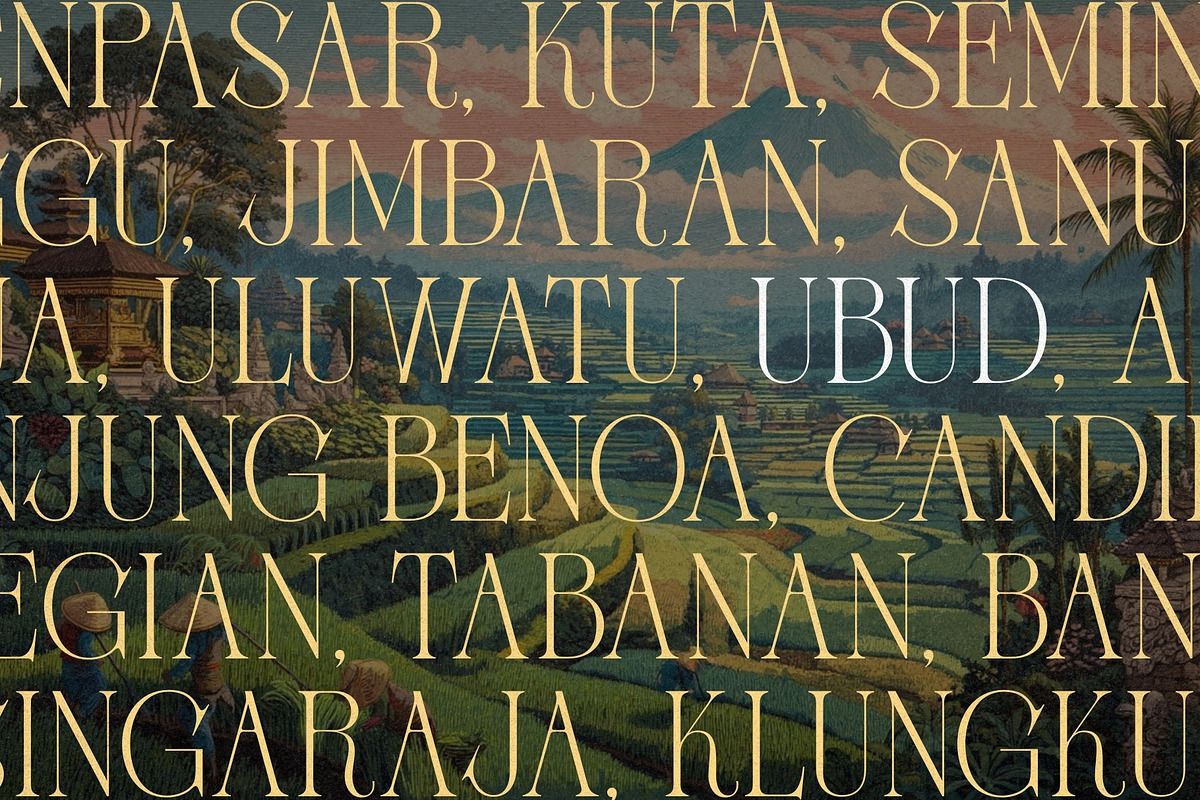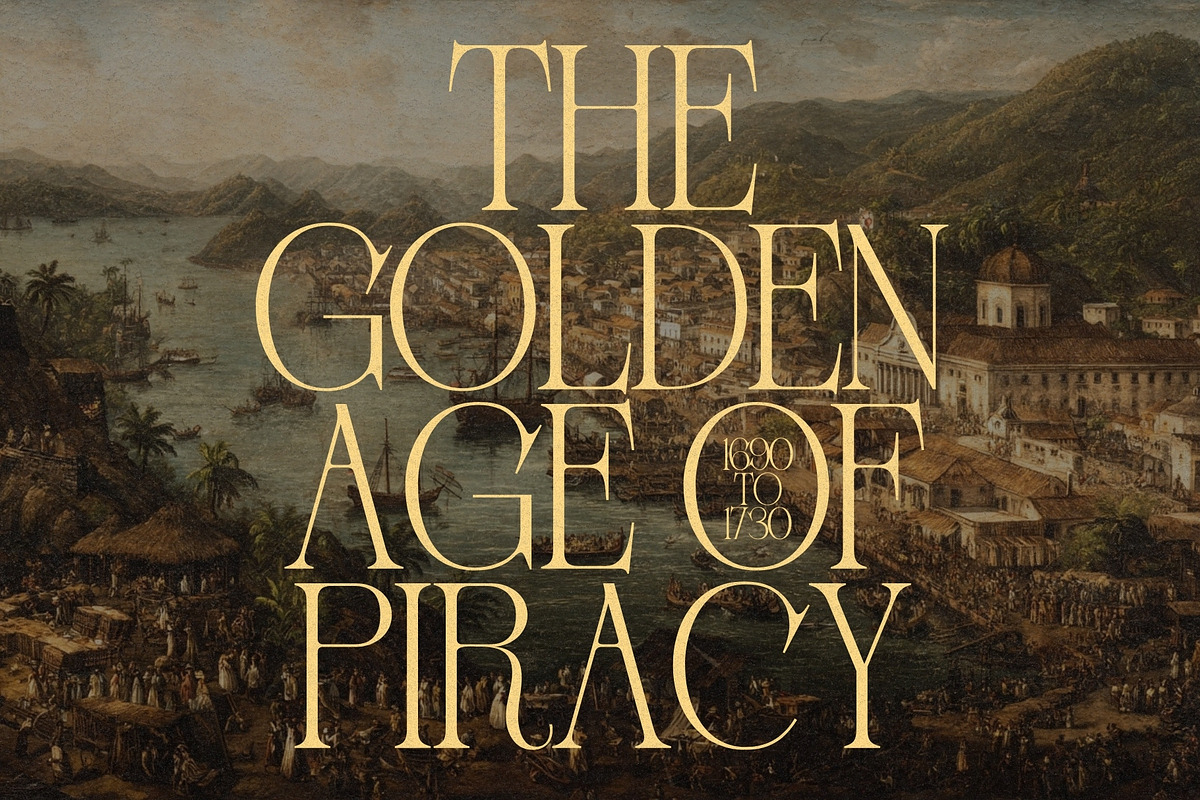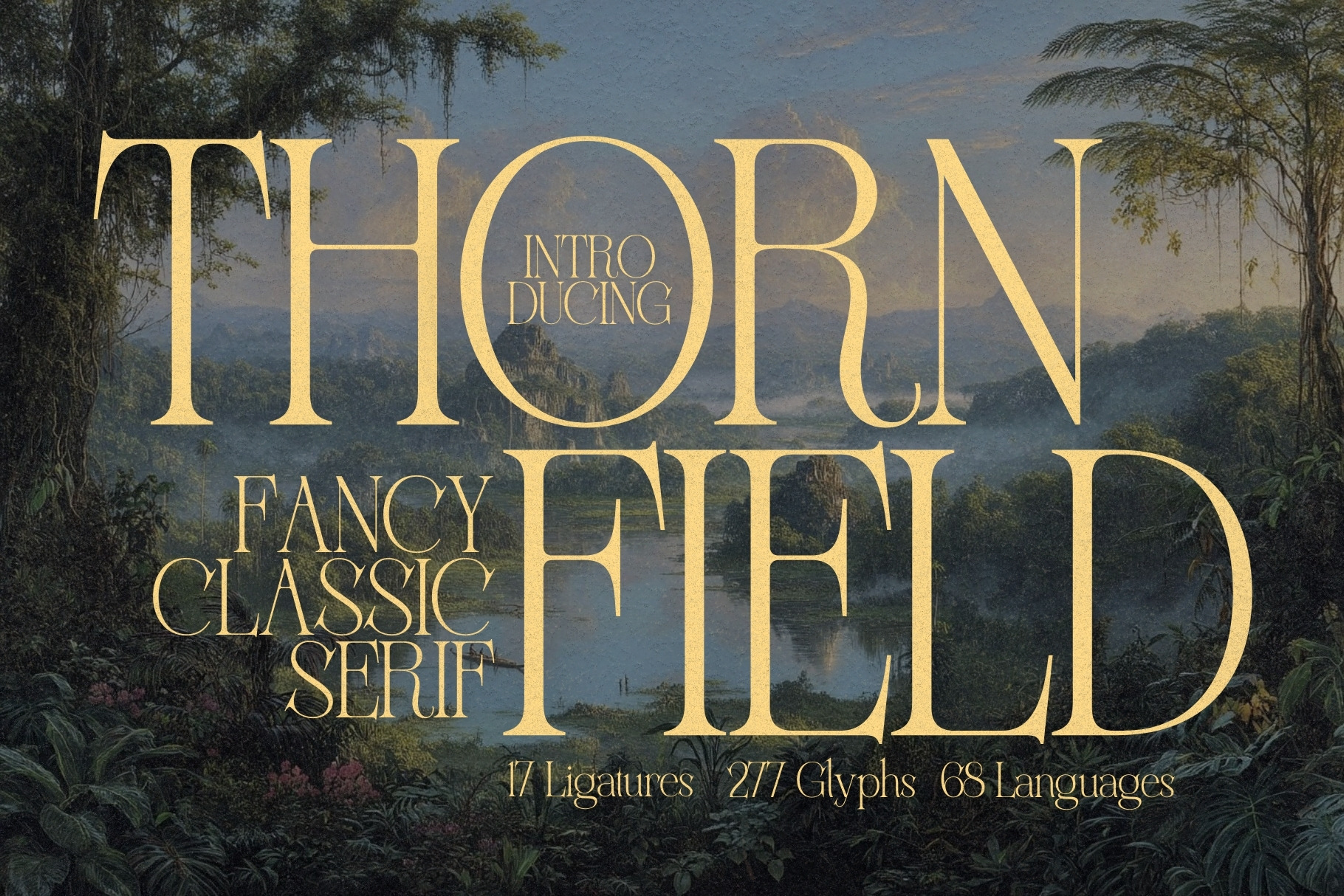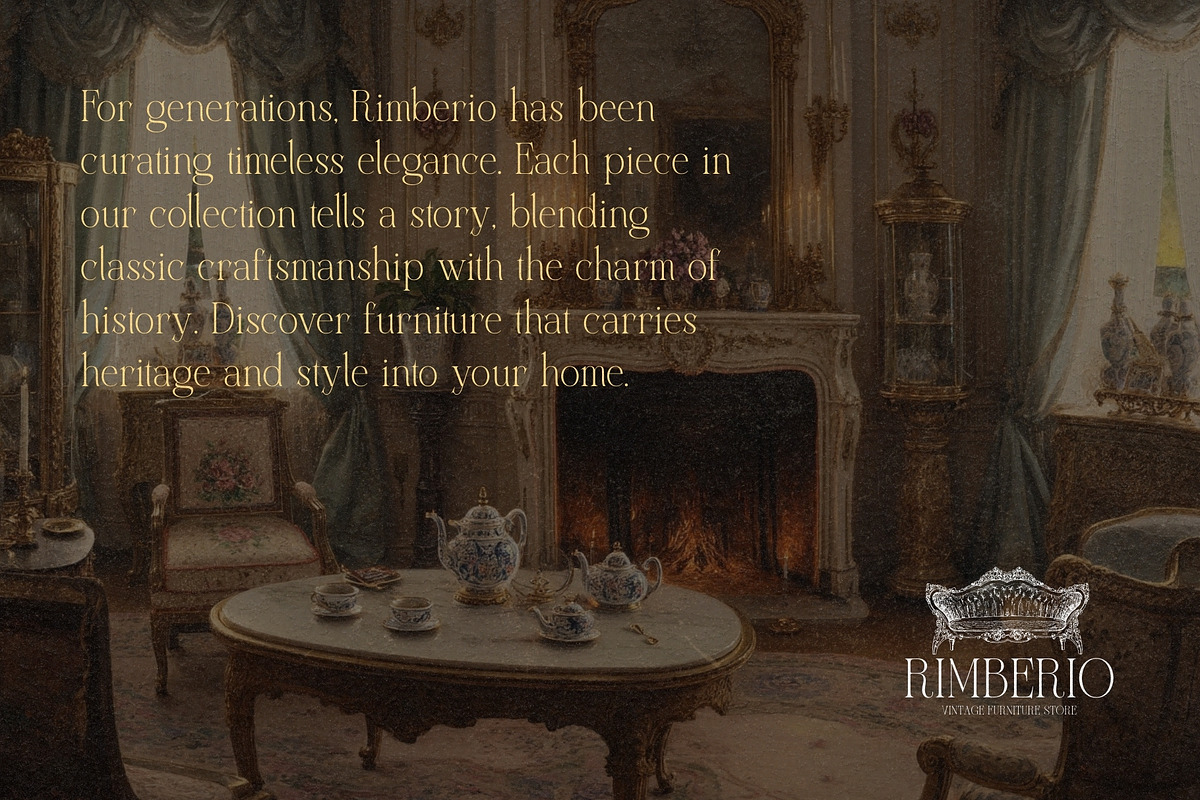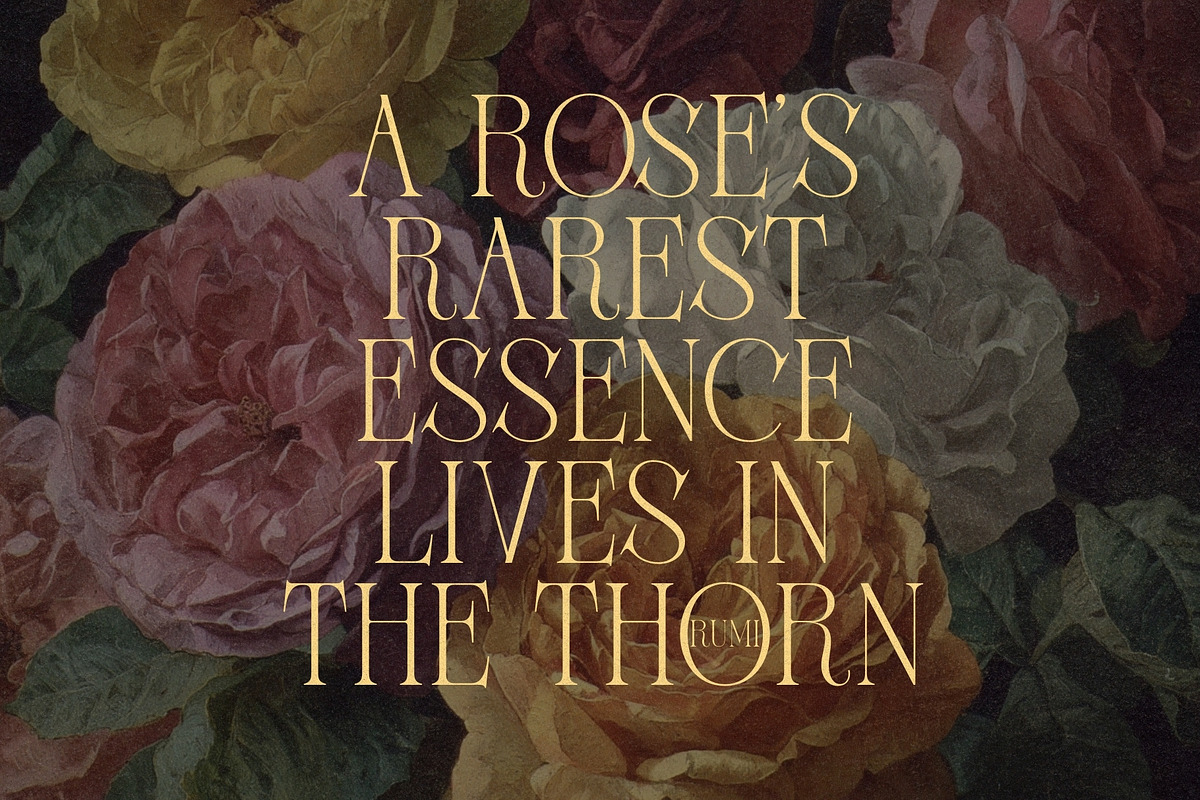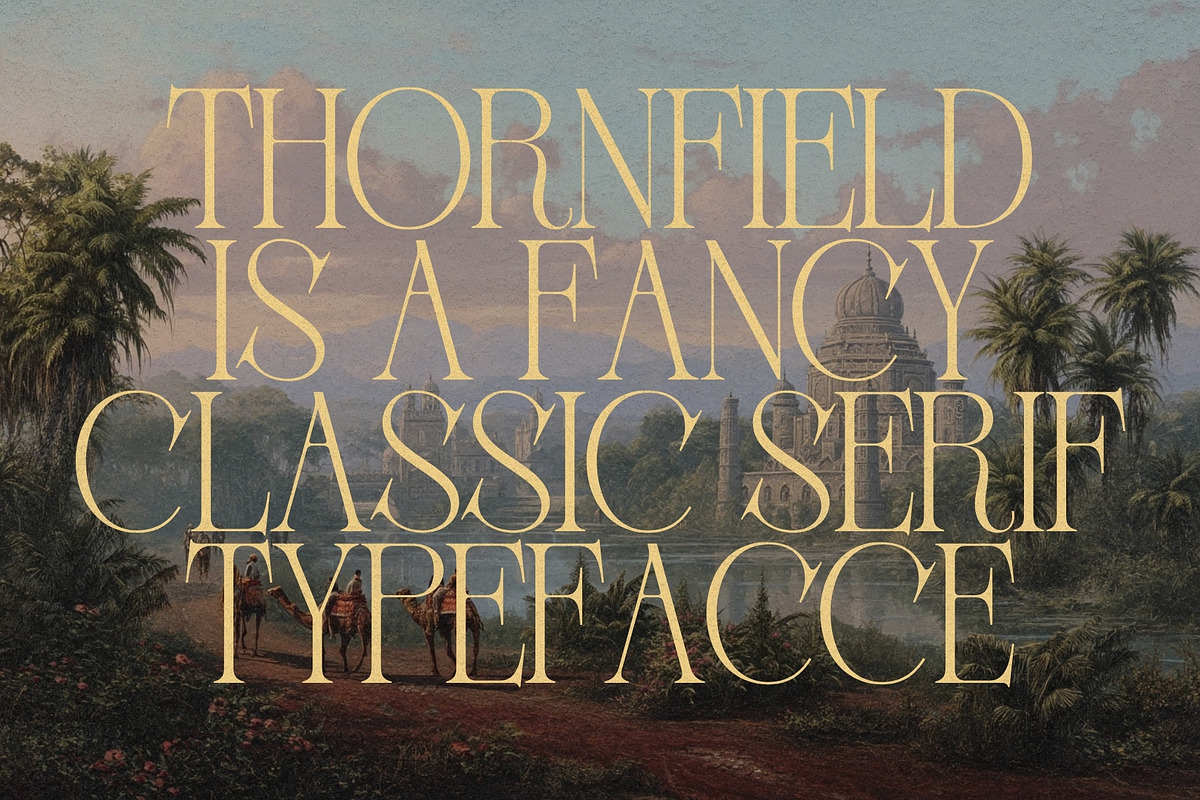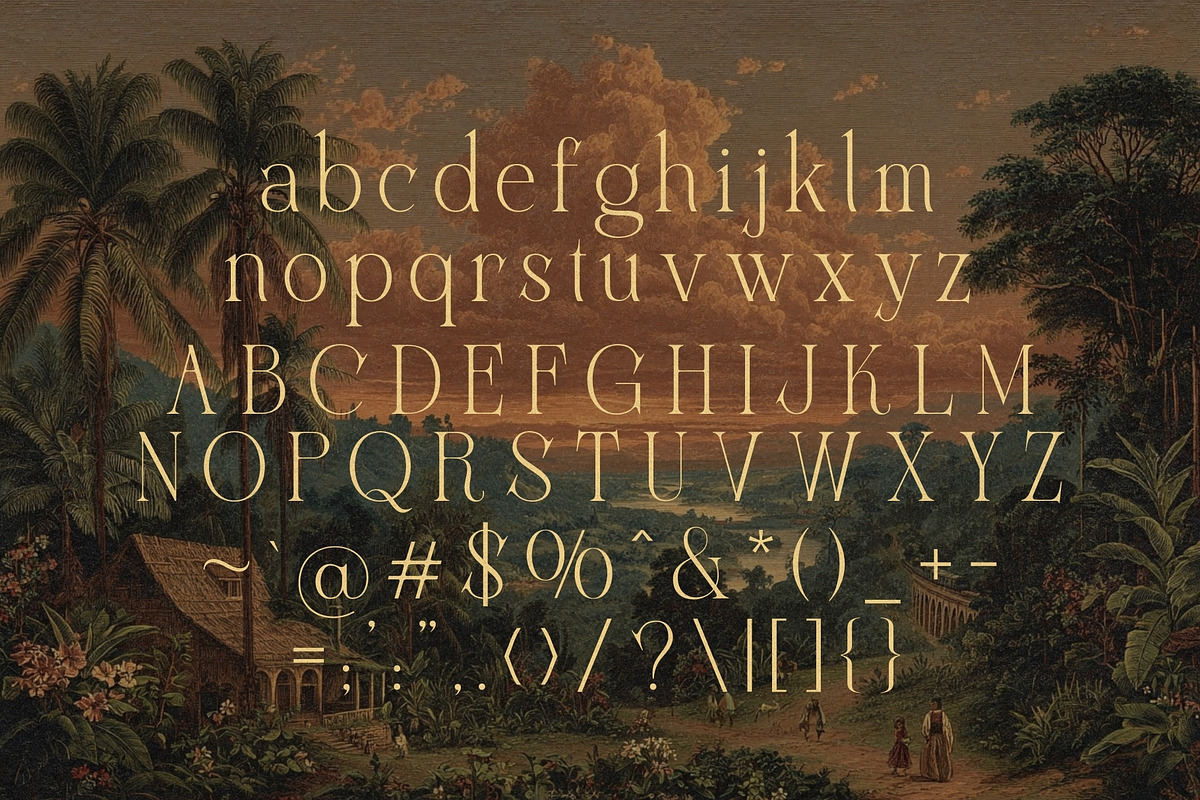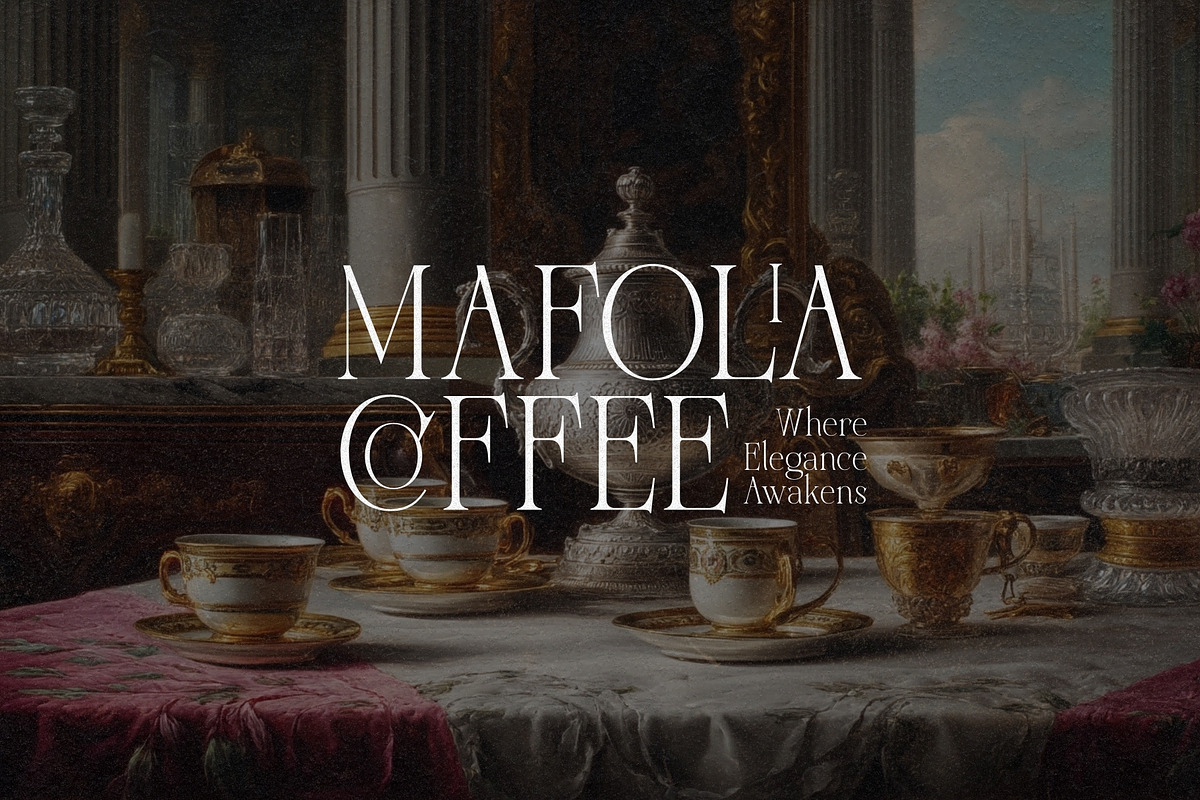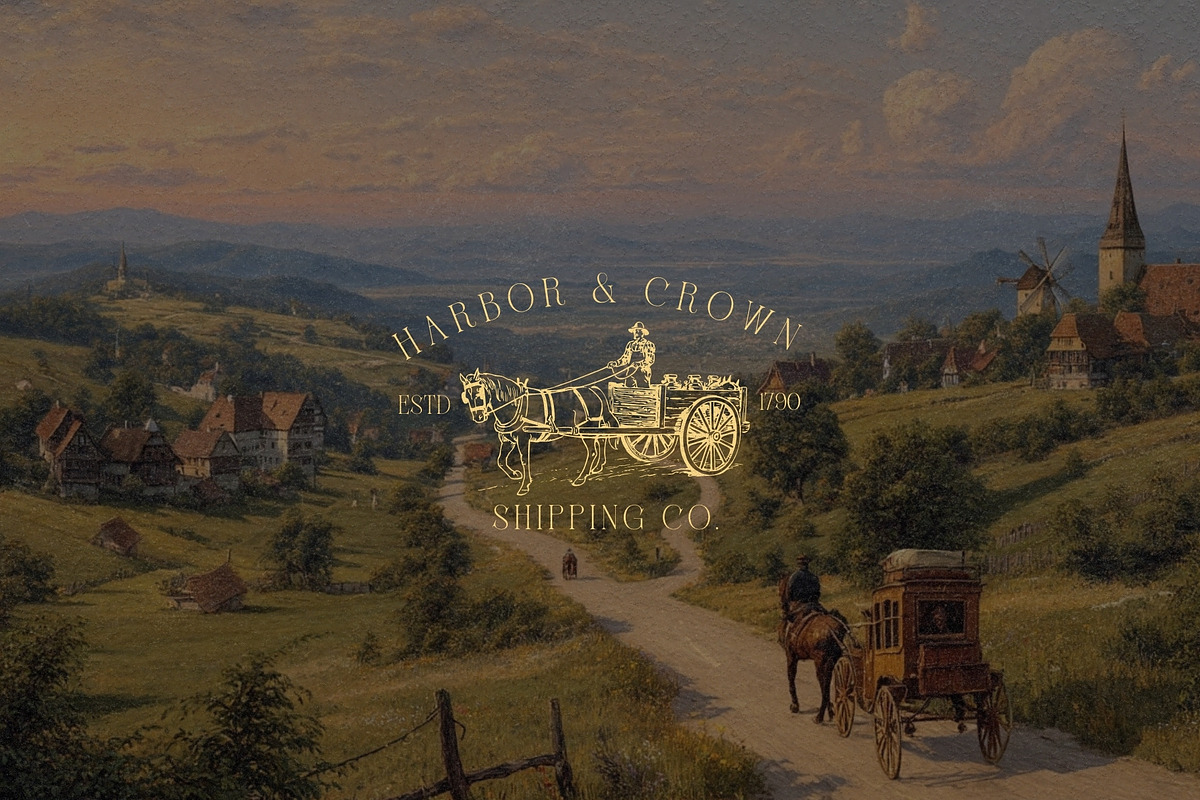
Thornfield - Classy Serif Typeface
Unleash the power of elegance with Thornfield, a classy serif typeface designed to make every project shine. With its sophisticated curves, stylish letterforms, and 17 exclusive ligatures, Thornfield exudes refinement and luxury, perfect for elevating logos, magazines, social media, branding, and any design that demands attention.
Whether you’re crafting a high-fashion editorial, a sleek product logo, or a chic Instagram post, Thornfield adds a touch of timeless style and unmistakable charm. Its versatile weights and refined details ensure every letter feels deliberate, polished, and perfectly balanced.
Step into a world where sophistication meets creativity, let Thornfield transform your work into something truly unforgettable. Elegance has a new name, and it’s Thornfield.